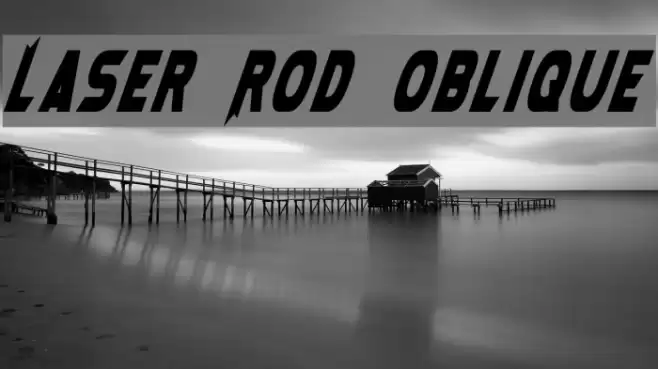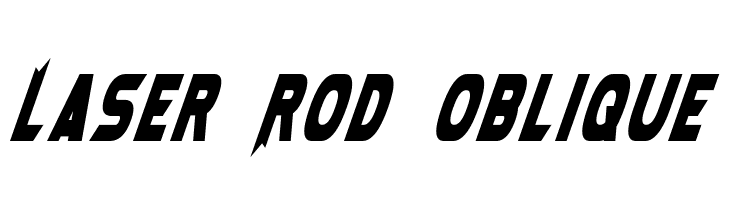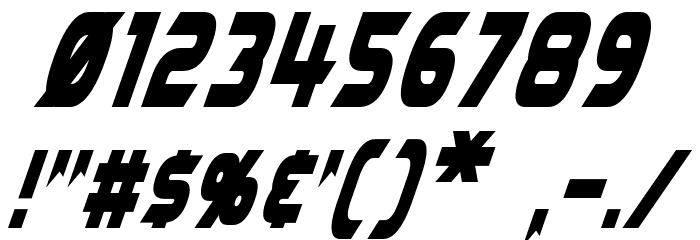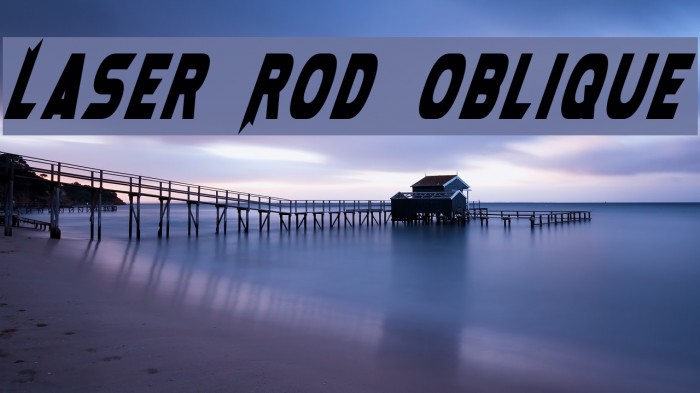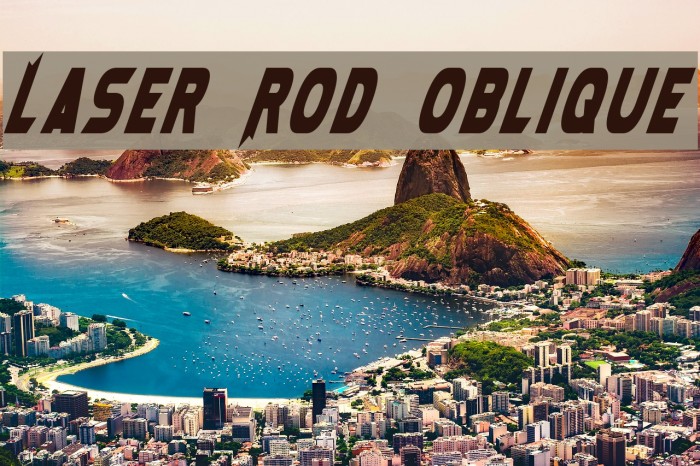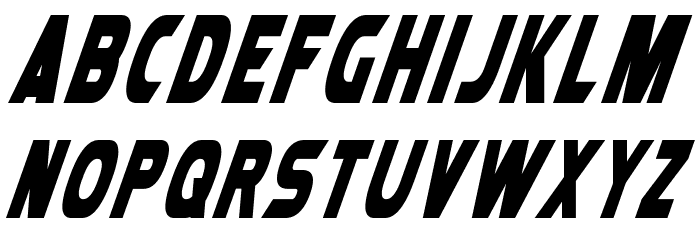
Laser Rod Oblique Font
Laser Rod Oblique Description
This font features a bold and dynamic style with sharp, angular edges and an oblique orientation. The characters are designed with a futuristic and aggressive flair, reminiscent of high-speed motion and cutting-edge technology. The uppercase letters are particularly striking, with exaggerated slants and pointed terminals that give the font a sense of urgency and energy. The numerals and special characters maintain this theme, ensuring a cohesive look across all glyphs. This font is ideal for projects that require a strong visual impact and a modern, edgy aesthetic.
A bold, angular, and oblique font with a futuristic and dynamic style from Uncategorized fonts.
- Proposed Projects: Ideal for sports branding, video game titles, action movie posters, and tech-related logos.